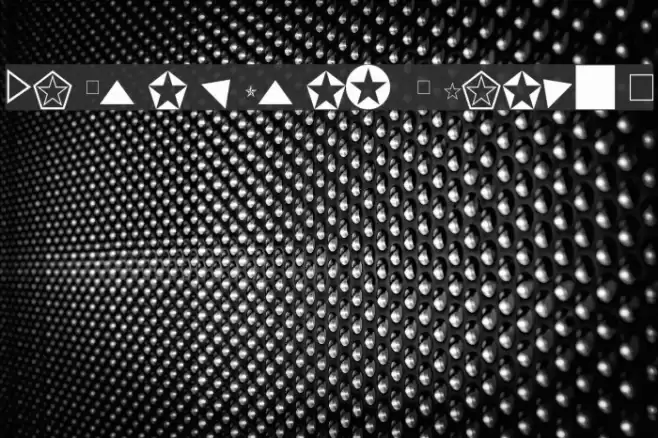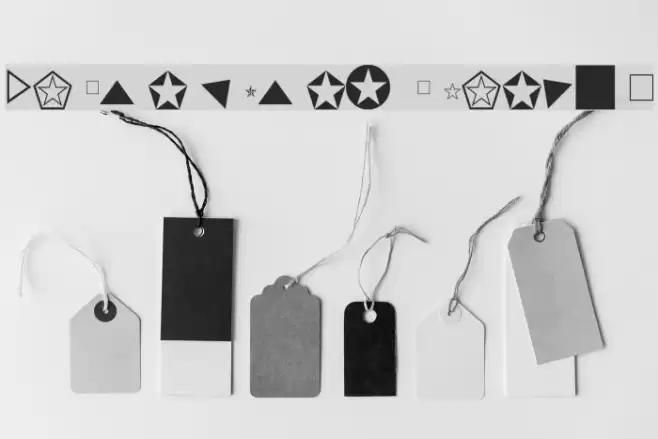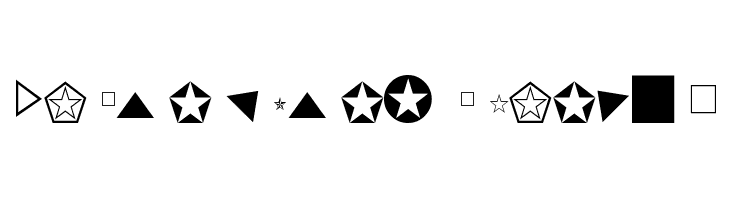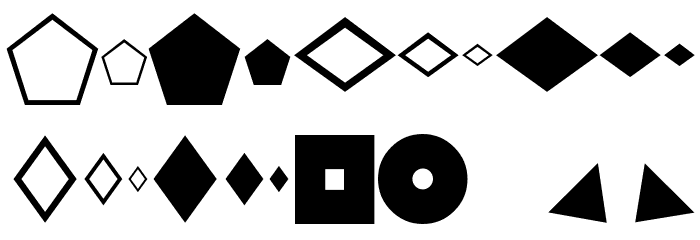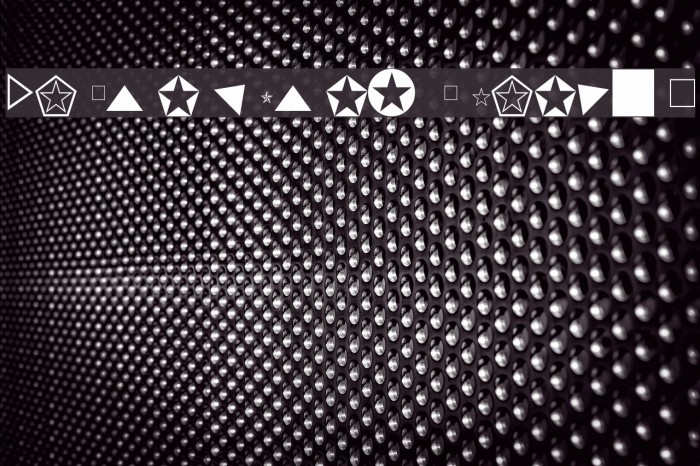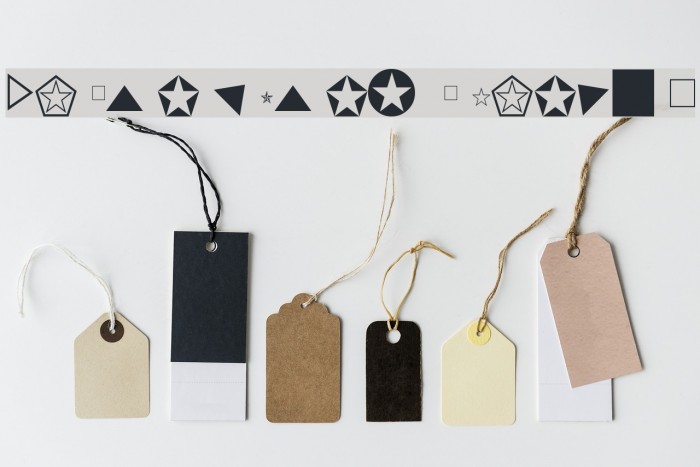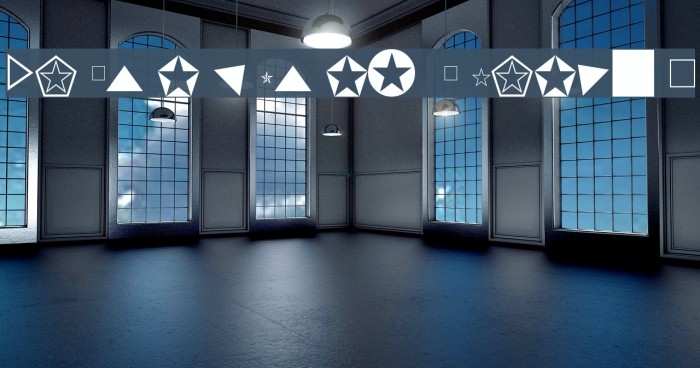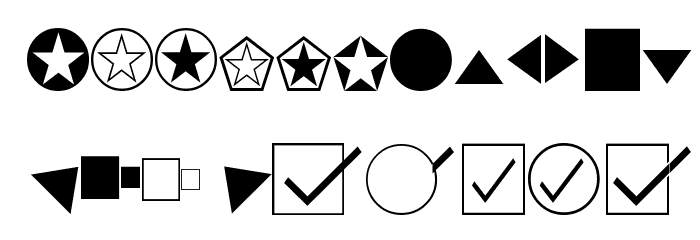
KensingtonDingbats Regular Font
KensingtonDingbats Regular Description
This collection features a variety of geometric shapes and symbols, including stars, circles, triangles, squares, and checkmarks. The designs range from simple outlines to filled shapes, offering a versatile set of icons for various design needs. The style is clean and minimalistic, making it suitable for modern and contemporary projects. The consistent line thickness and balanced proportions ensure a cohesive look across all symbols.
A versatile set of geometric shapes and symbols with a clean, minimalistic style from Dingbats fonts.
- Proposed Projects: Ideal for infographics, educational materials, user interface design, and decorative elements in graphic design projects.
- Use Case: Icons, Decorative elements